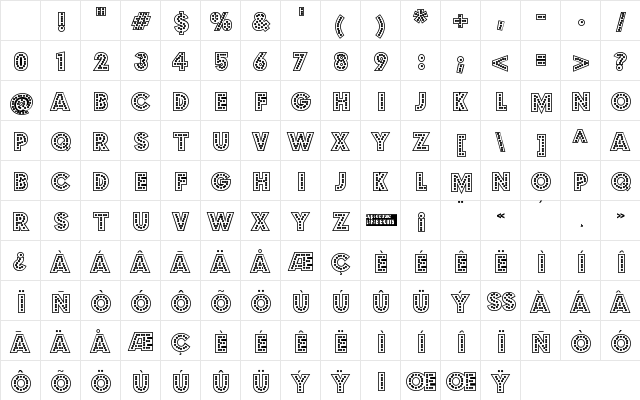
Complete Budmo Jigglish Regular glyph index. Displaying only characters natively supported by Budmo Jigglish Regular font.
Budmo Jigglish is a composed and adaptable typeface that performs quietly and consistently across a wide range of design contexts.